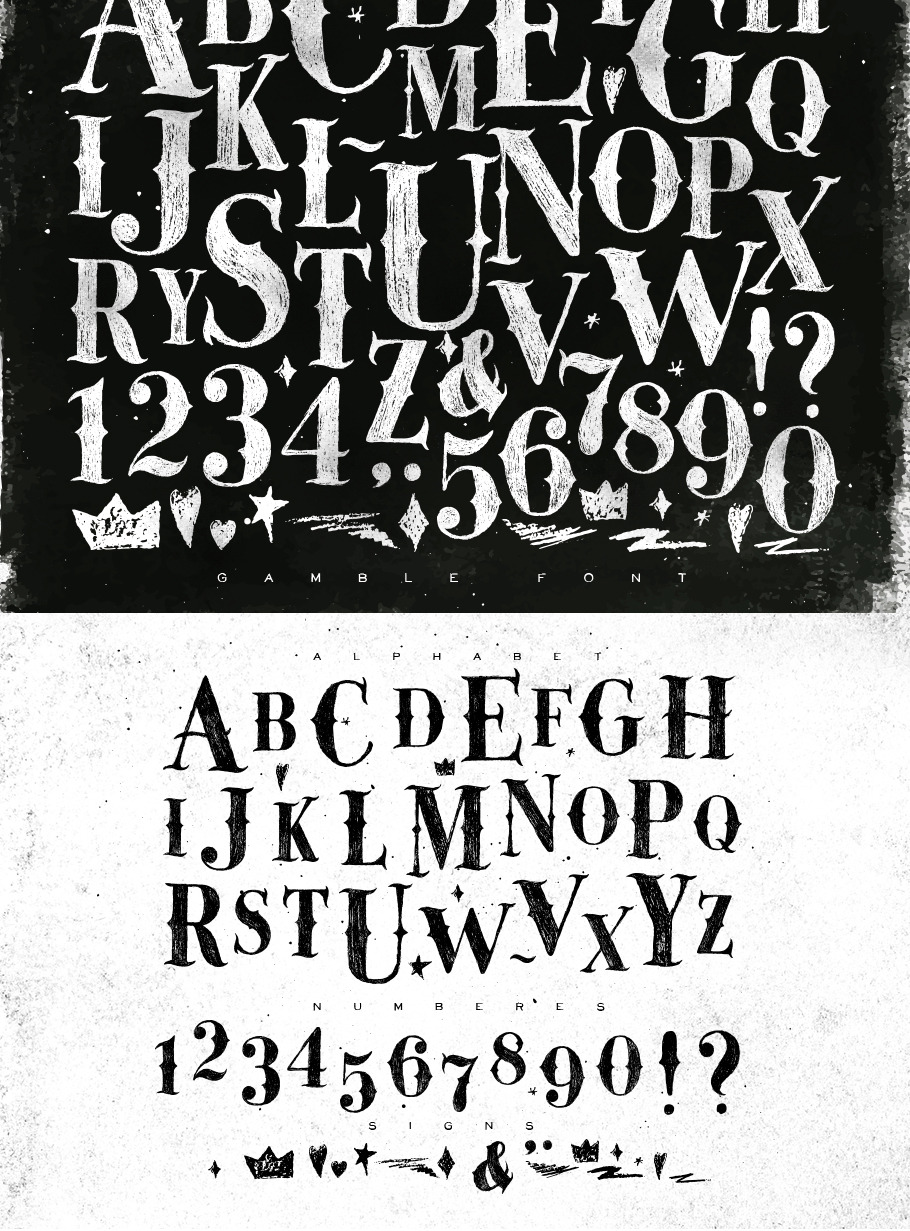
Gamble Font
Vintage gothic font in retro style drawing on dirty paper and chalkboard background. Every letter located on separate layers. You will get font file for PC or MAC to install it into your system.